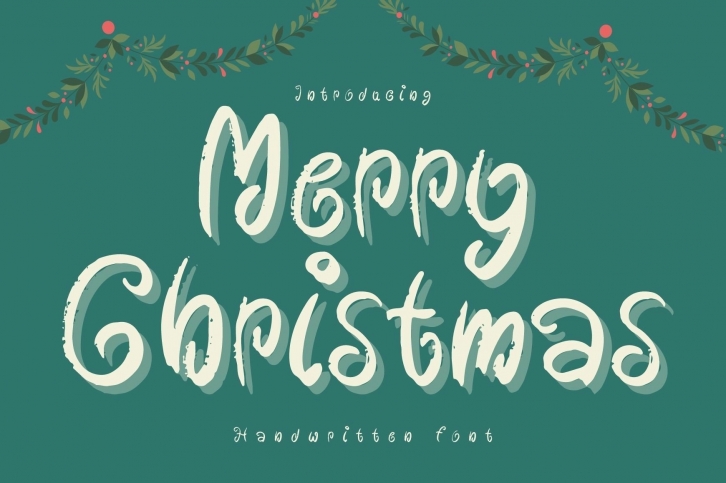
Merry Christmas is a cute and Christmas handwritten is a gorgeous font that was realeased on October 19, 2022. The font can be used in many style contexts and design environments. Perfect for invitations, magazines, websites, logos, and more! It was designed by Brown Cupple Typeface and the file size is 7.86 MB. Thanks for checking out this font!